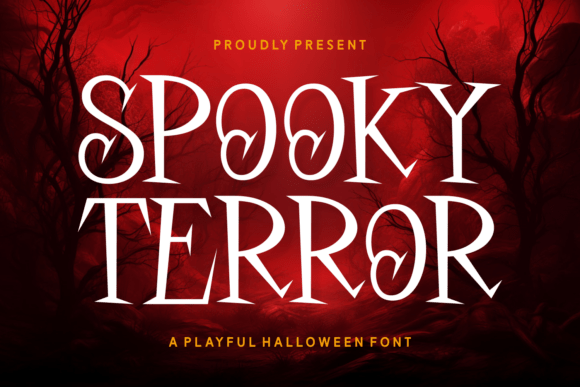
Spooky Terror Font: Unleash the Chilling Breath of Halloween on Your Creative Projects
As the witching hour approaches, and the spooky season takes center stage, it’s time to infuse your creative projects with a dash of eerie elegance. Introducing the “Spooky Terror” font, a specially designed typeface that embodies the chilling essence of Halloween. This font is perfect for transforming your party invitations, website elements, social media posts, and spooky stories into haunted masterpieces that will leave your audience shivering with delight.
What Makes Spooky Terror Font So Unique?
- Eerie Elegance: The Spooky Terror font boasts an unmistakable eerie elegance, making it the perfect choice for any project that requires a touch of the macabre.
- Chilling Breath of Halloween: This font carries with it the chilling breath of Halloween, evoking the spooky spirit of the season.
- Versatile Design: The Spooky Terror font is designed to be versatile, making it suitable for a wide range of creative projects, from party invitations to website elements and social media posts.
- Easy to Read: Despite its spooky theme, the font remains easy to read, ensuring that your message is conveyed effectively.
10 Spooky Cool Ideas to Use Spooky Terror Font
- Party Invitations: Create hauntingly beautiful party invitations that will set the tone for a spooktacular celebration.
- Spooky Stories: Use the Spooky Terror font to add a chilling touch to your spooky stories, making them even more terrifying and engaging.
- Website Elements: Add a touch of eerie elegance to your website elements, such as headings, titles, and captions.
- Social Media Posts: Make your social media posts stand out with the Spooky Terror font, perfect for Halloween-themed posts or promotions.
- Halloween-Themed Merchandise: Create hauntingly beautiful merchandise, such as t-shirts, mugs, and posters, featuring the Spooky Terror font.
- Movie and TV Show Promotions: Use the Spooky Terror font to create eye-catching promotions for horror movies and TV shows.
- Haunted House Marketing: Create chilling marketing materials for haunted houses and spooky attractions.
- Video Game Titles: Add a touch of eerie elegance to your video game titles, perfect for horror-themed games.
- Book Covers: Use the Spooky Terror font to create hauntingly beautiful book covers for horror and thriller novels.
- Themed Events: Create eye-catching marketing materials for themed events, such as Halloween parties and haunted house attractions.
Typography Tips for Using Spooky Terror Font
- Pair with Contrasting Fonts: Pair the Spooky Terror font with contrasting fonts to create visual interest and hierarchy.
- Experiment with Colors: Experiment with different colors to find the perfect combination that complements your design.
- Use Texture and Patterns: Add texture and patterns to your design to create a more immersive experience.
- Play with Size and Scale: Play with size and scale to create visual hierarchy and emphasis.
Unleash Your Creative Terror with Spooky Terror Font
In conclusion, the Spooky Terror font is a versatile and eerie elegant typeface that is perfect for adding a touch of Halloween spirit to your creative projects. With its chilling breath and hauntingly beautiful design, this font is sure to transform your party invitations, website elements, social media posts, and spooky stories into haunted masterpieces. So, download the Spooky Terror font today and unleash your creative terror!